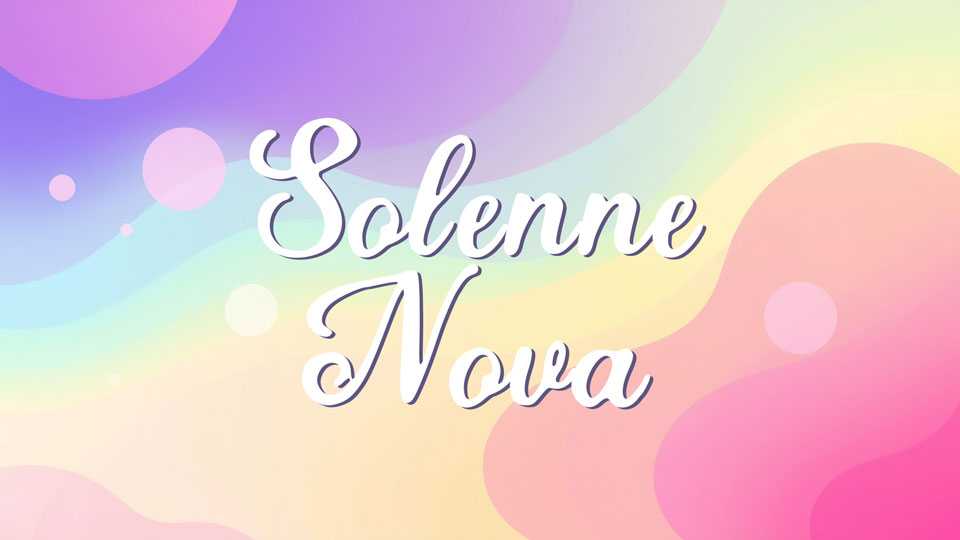
Download Solenne Nova font, a sophisticated typeface that blends classic elegance with contemporary finesse, featuring smooth curves, balanced proportions.